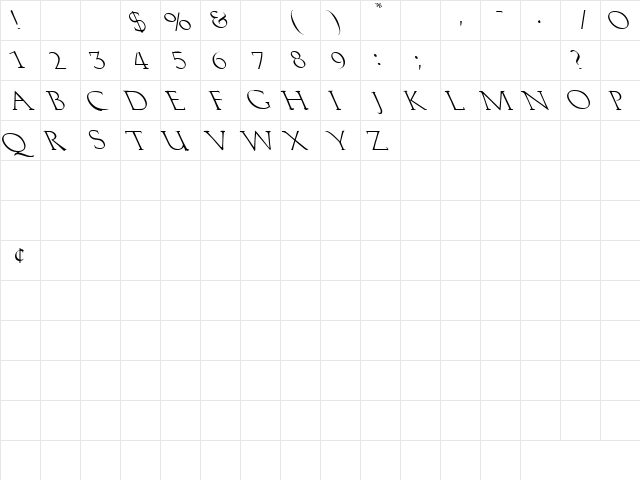
Learning 2 Regular
Design Context for Learning 2 Typeface
Learning 2 offers clean, dependable letterforms without strong stylistic allegiance, making it a practical choice for designers who need flexibility.